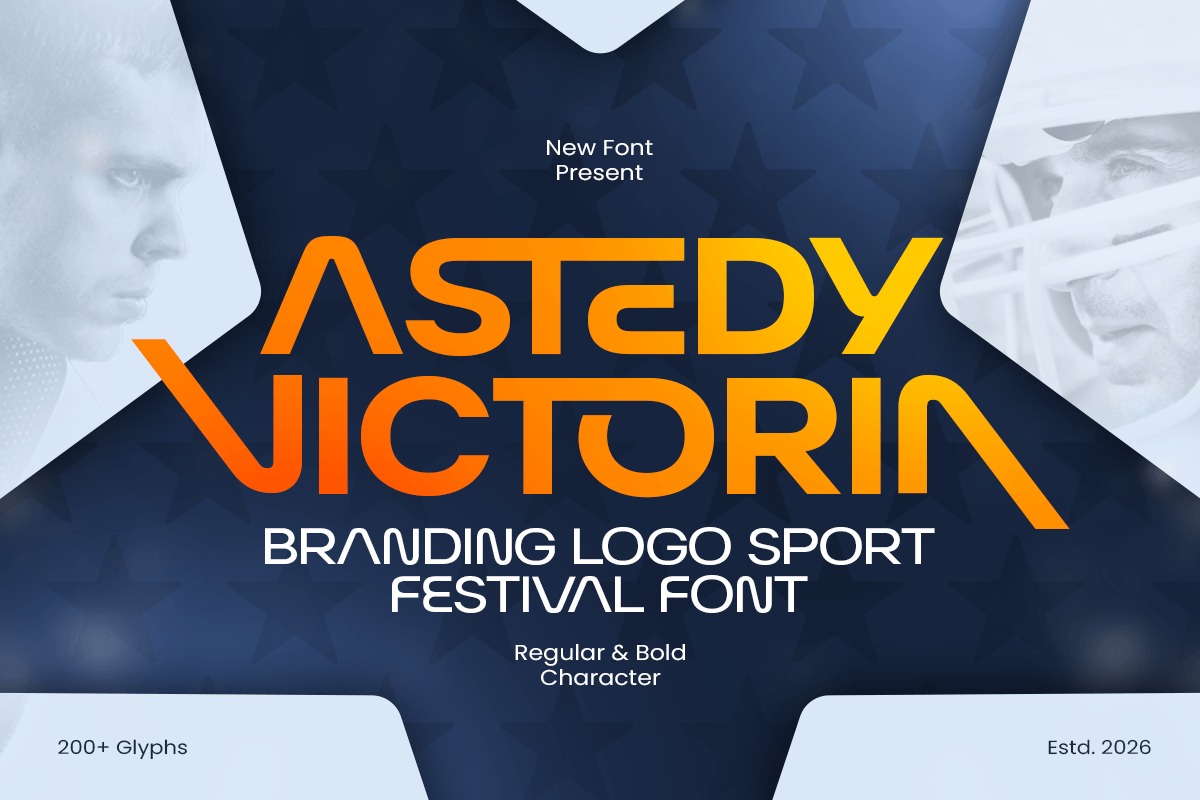
Astedy Victoria – Logo Sport Font
Astedy Victoria – Logo Sport Font is a clean and thoughtfully built typeface that works seamlessly for both professional branding and everyday creative uses. Astedy Victoria is a logo sport Festival font designed to deliver strength, motion, and competitive energy in every letter. With bold structure, dynamic rhythm, and a clean athletic presence, this typeface creates a powerful visual tone that feels modern, spirited, and instantly attention-grabbing.
Built for sports-focused branding, Astedy Victoria works beautifully across team identities, tournament posters, event headlines, championship graphics, promotional banners, social media campaigns, website headers, signage, and performance-driven marketing visuals. Its sporty display structure keeps every word strong and readable, making it ideal for both digital and print layouts that need speed, confidence, and impact.
Whether you’re building an Sport Festival-inspired campaign, designing sports event visuals, creating athletic branding, or crafting energetic promotional content, Astedy Victoria provides a bold typographic foundation that makes your typography feel competitive, modern, and unforgettable.